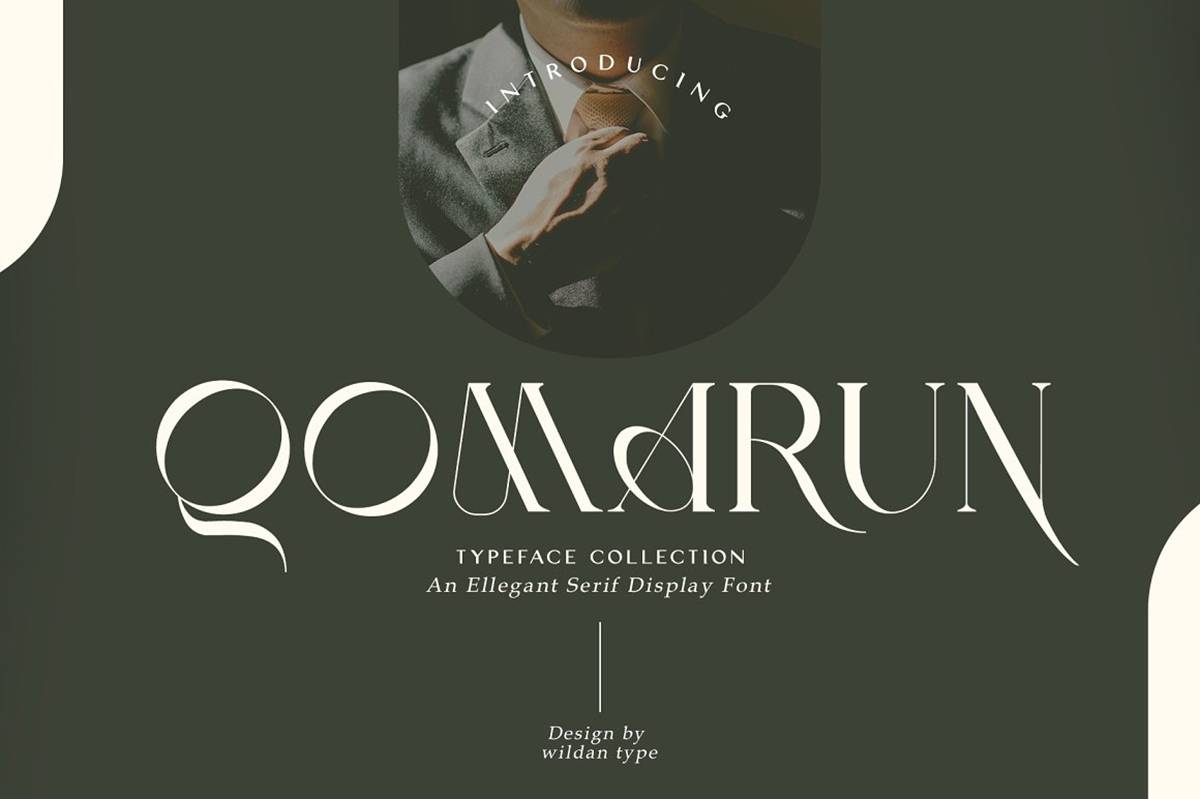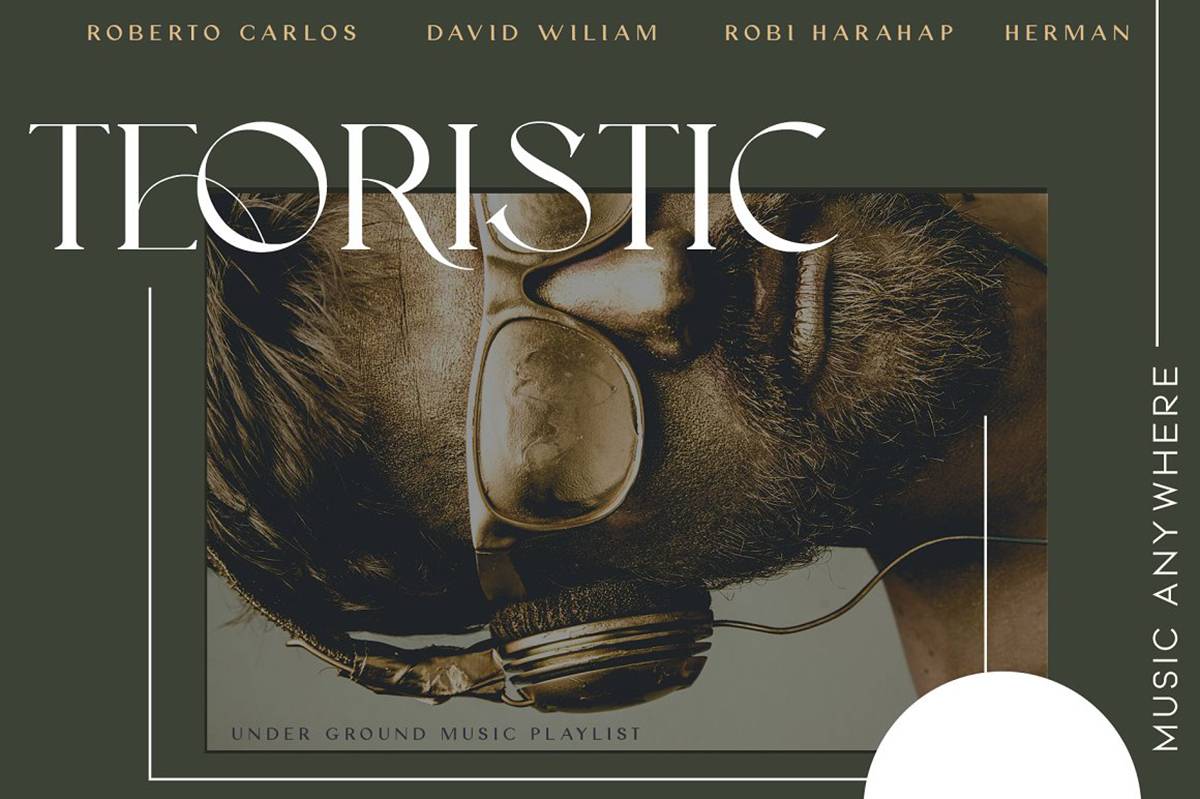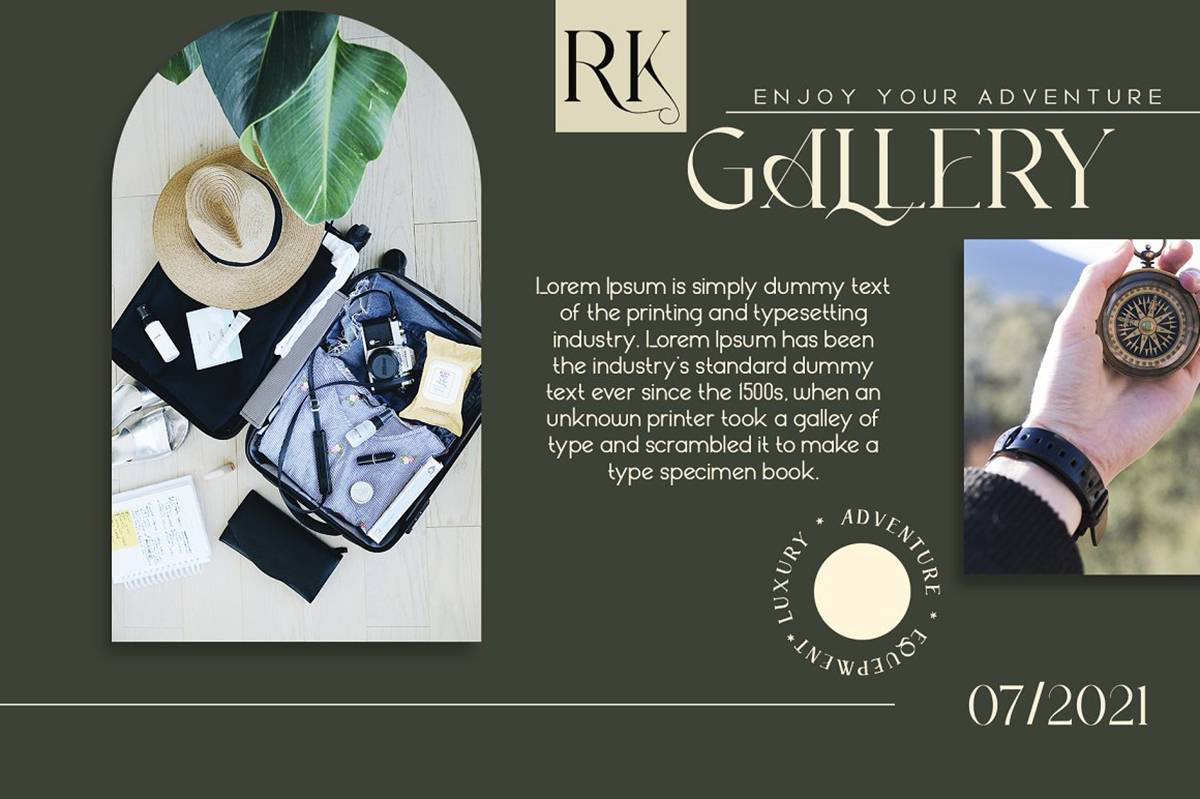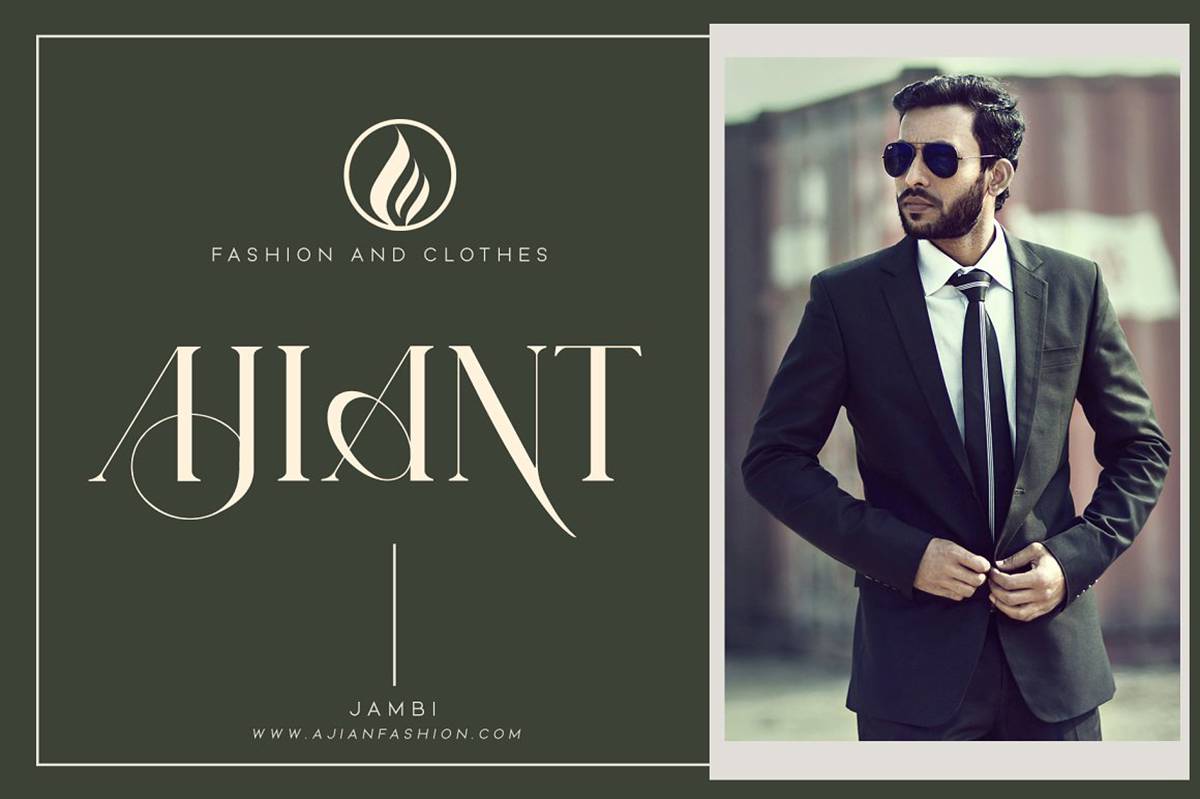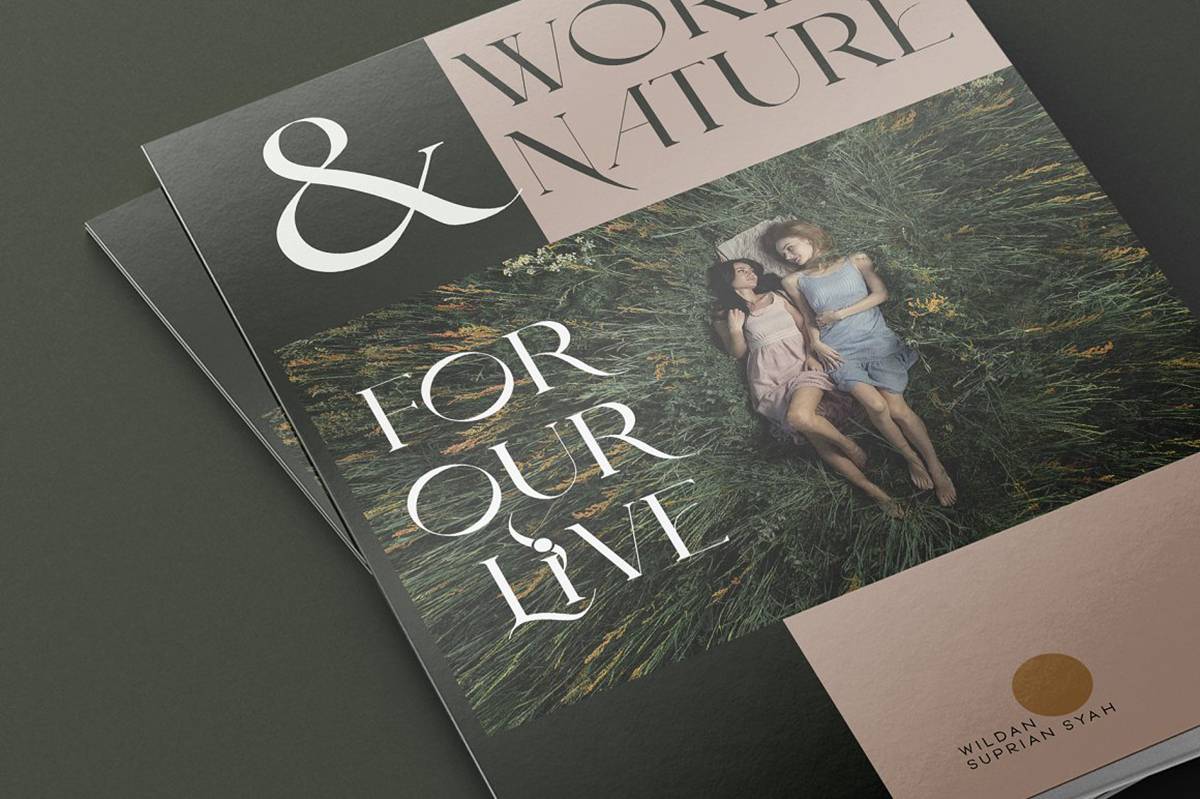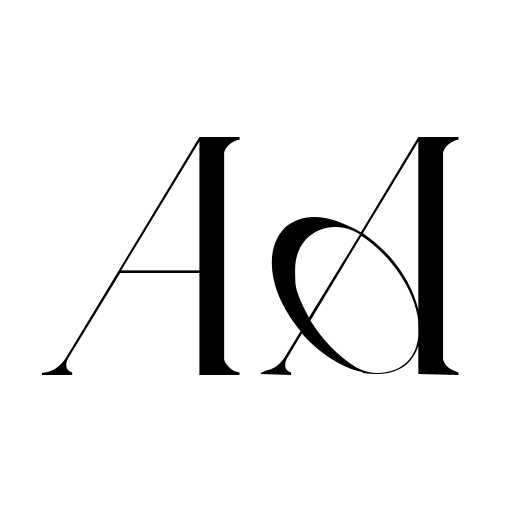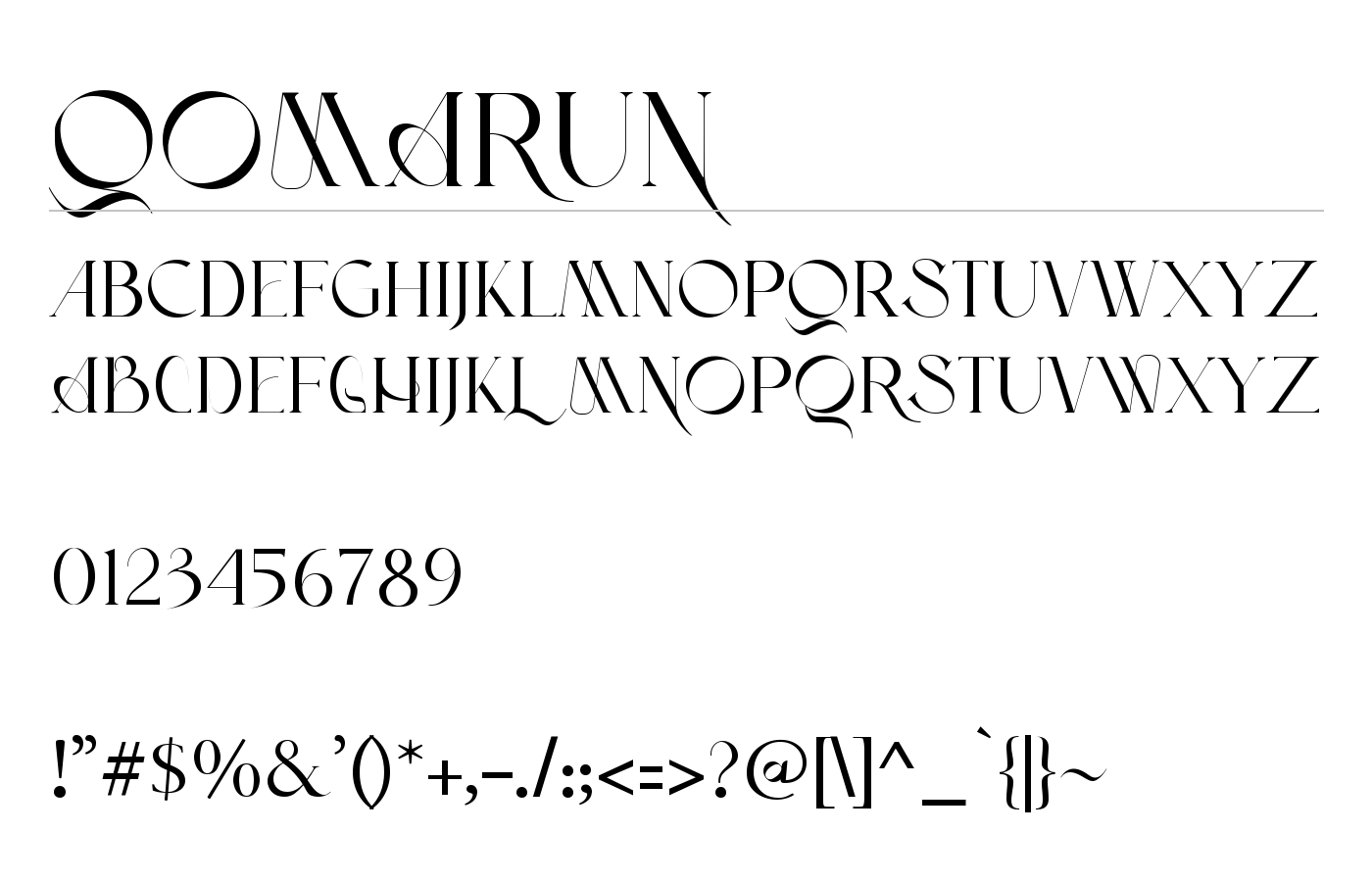
Qomarun is an elegant serif font with a high-contrast, modern look that blends thin, sharp strokes with dramatic curves and unique stylistic details. Its refined letterforms and delicate serifs give it a luxurious, sophisticated personality, making it ideal for upscale branding, editorial headlines, and fashion or luxury packaging where a distinctive, artistic touch is desired. This font works best in large sizes, highlighting its artistic flair while maintaining readability.
| Font family | Qomarun Font |
| Designer | Wildan Suprian Syah |